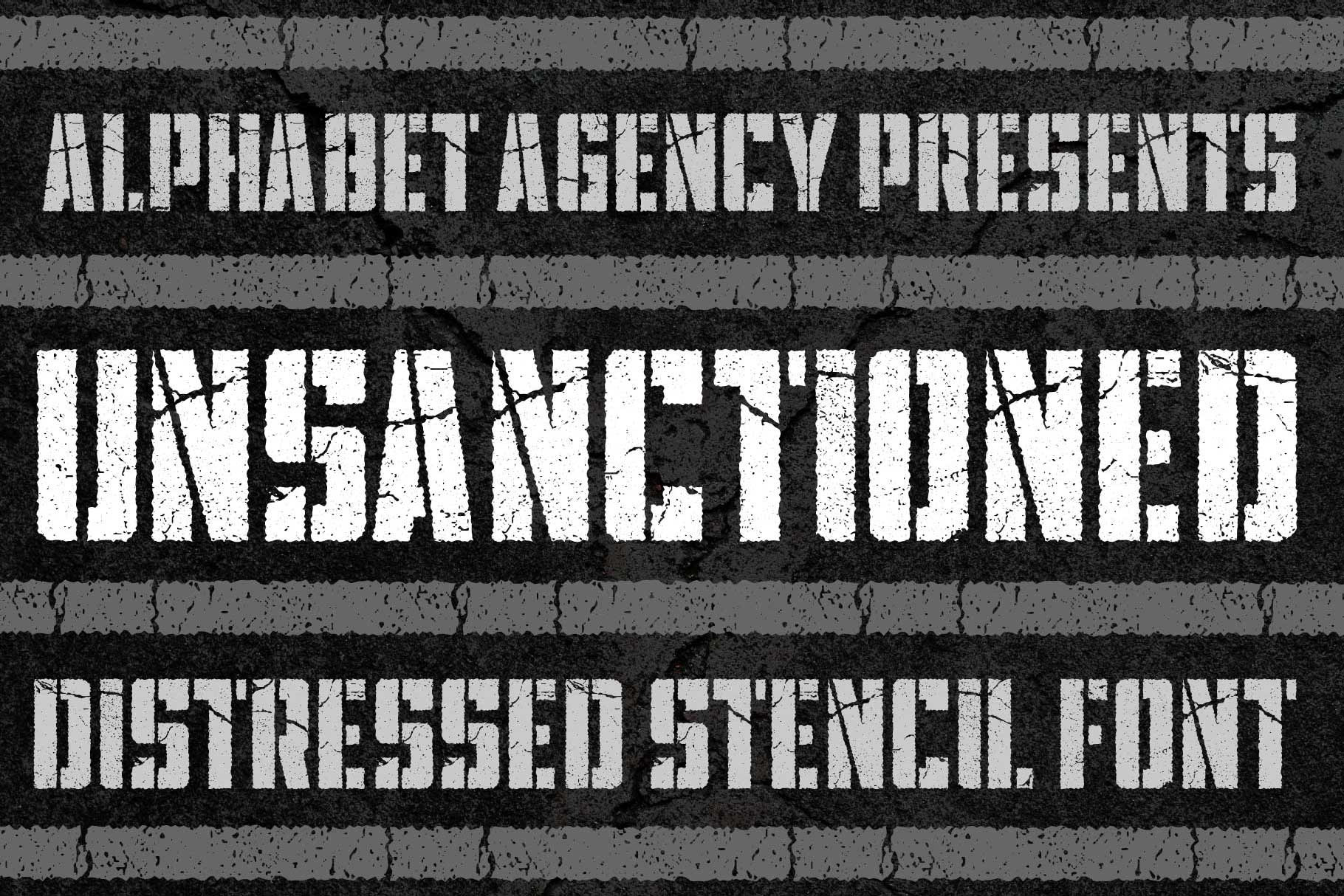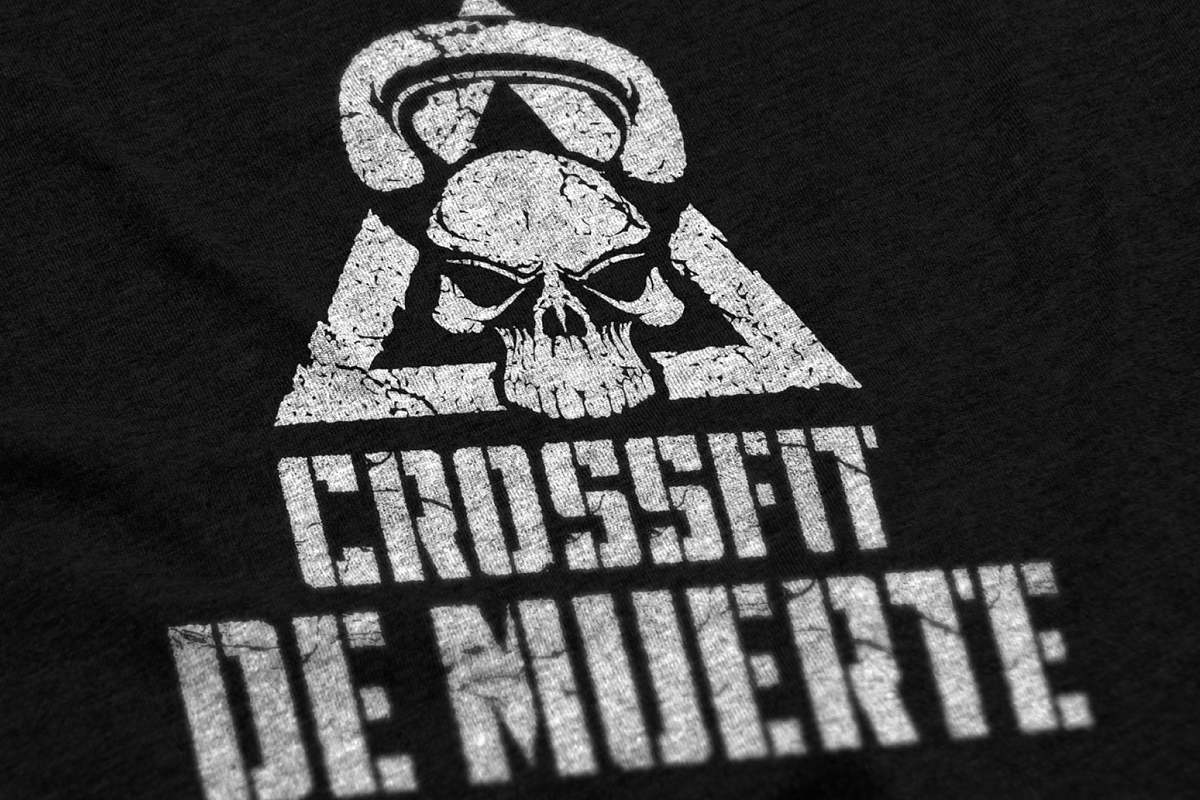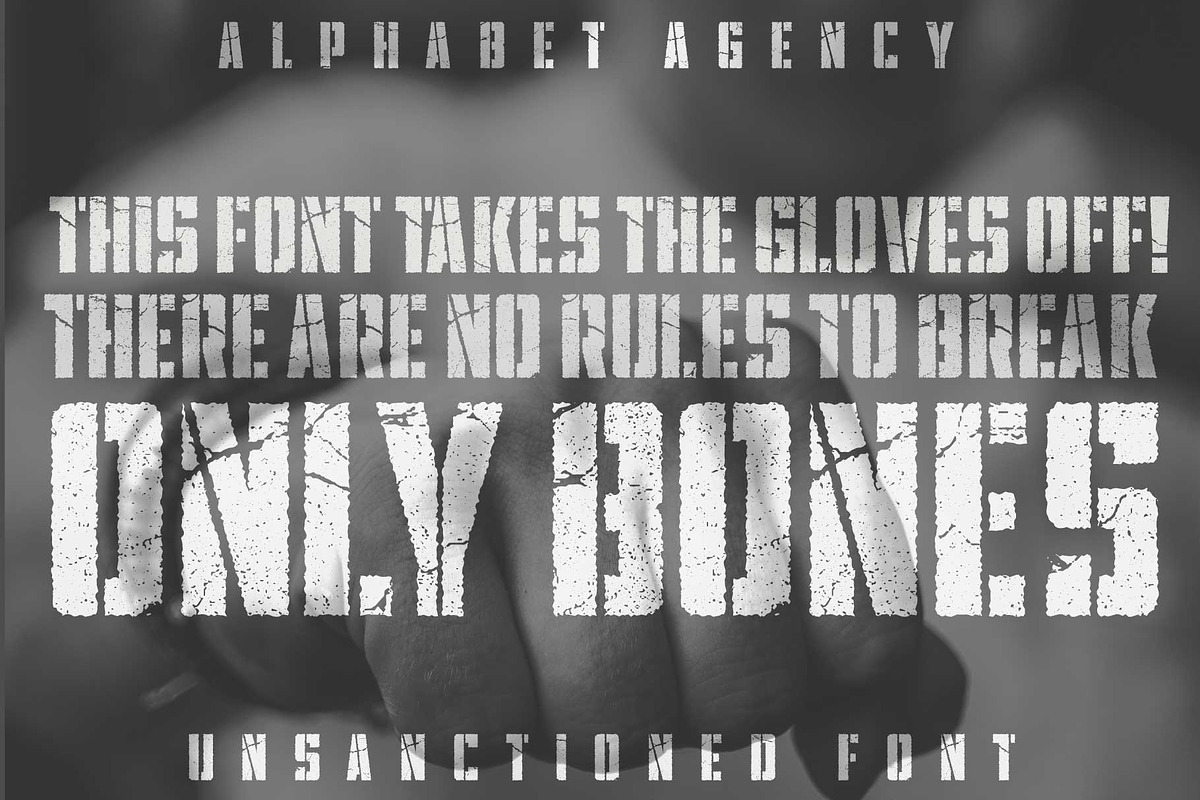
UNSANCTIONED DISTRESSED STENCIL FONT
Alphabet Agency proudly presents Unsanctioned;, a distressed stencil font. The font has been designed in a bold stencil font style with an awesome distressed effect.
Unsanctioned font is great for use in , war, crime, urban and combat sports related themes.
The font contains capital and alternative capital letters, numbers, punctuation and basic Latin international characters.